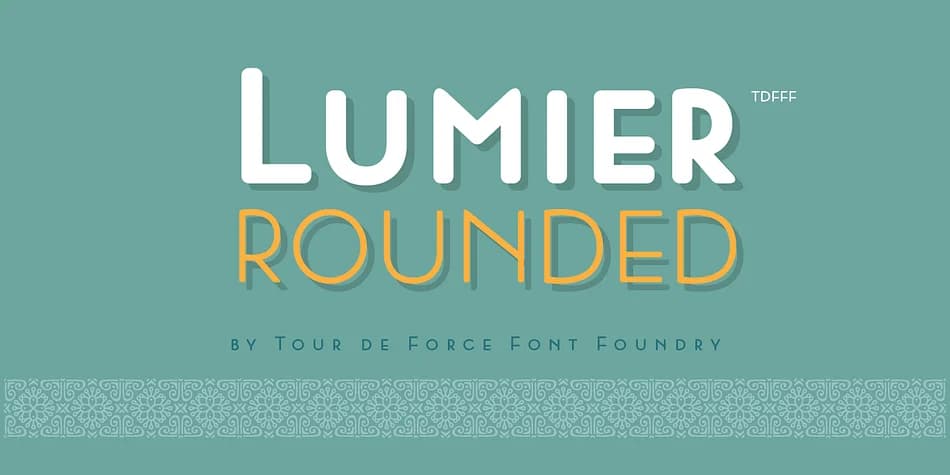
Lumier Rounded softens the refined letterforms of its parent family with curves that feel contemporary and genuinely inviting. Tour de Force Font Foundry designed this decorative typeface to find the perfect balance between refinement and accessibility, creating a voice that works for both luxury applications and playful, approachable projects alike.
The rounded edges lend themselves naturally to greeting card suites, wine bottle packaging, cosmetic labels, and skincare branding that wants to feel human and warm without sacrificing perceived quality. You'll see it thrive on children's illustrated book covers, bakery menus and pastry box designs, custom gift tags, and Etsy product listings where the consistent stroke weight keeps everything readable even at smaller sizes. Hand-lettered social media graphics, brand mark lockups, and product photography overlays all benefit from its approachable yet polished geometry.
This font suits any designer building contemporary brands around craftsmanship, makers creating beautiful paper goods and stationery sets, and anyone designing packaging or marketing materials for audiences who respond to modern typefaces that feel human rather than corporate or impersonal. The rounded terminals create genuine softness in headlines and callouts without sacrificing visual presence or impact. Lumier Rounded is available on Creative Fabrica.
Lumier Rounded Font is a decorative font that shines as a display or heading face. Pair it with a clean sans-serif or serif font for body text β the contrast creates a clear hierarchy while the two styles stay balanced and easy to read.